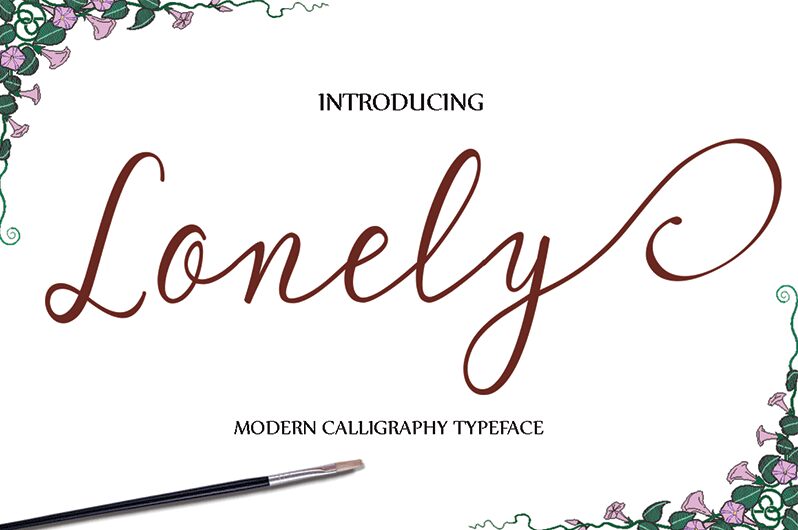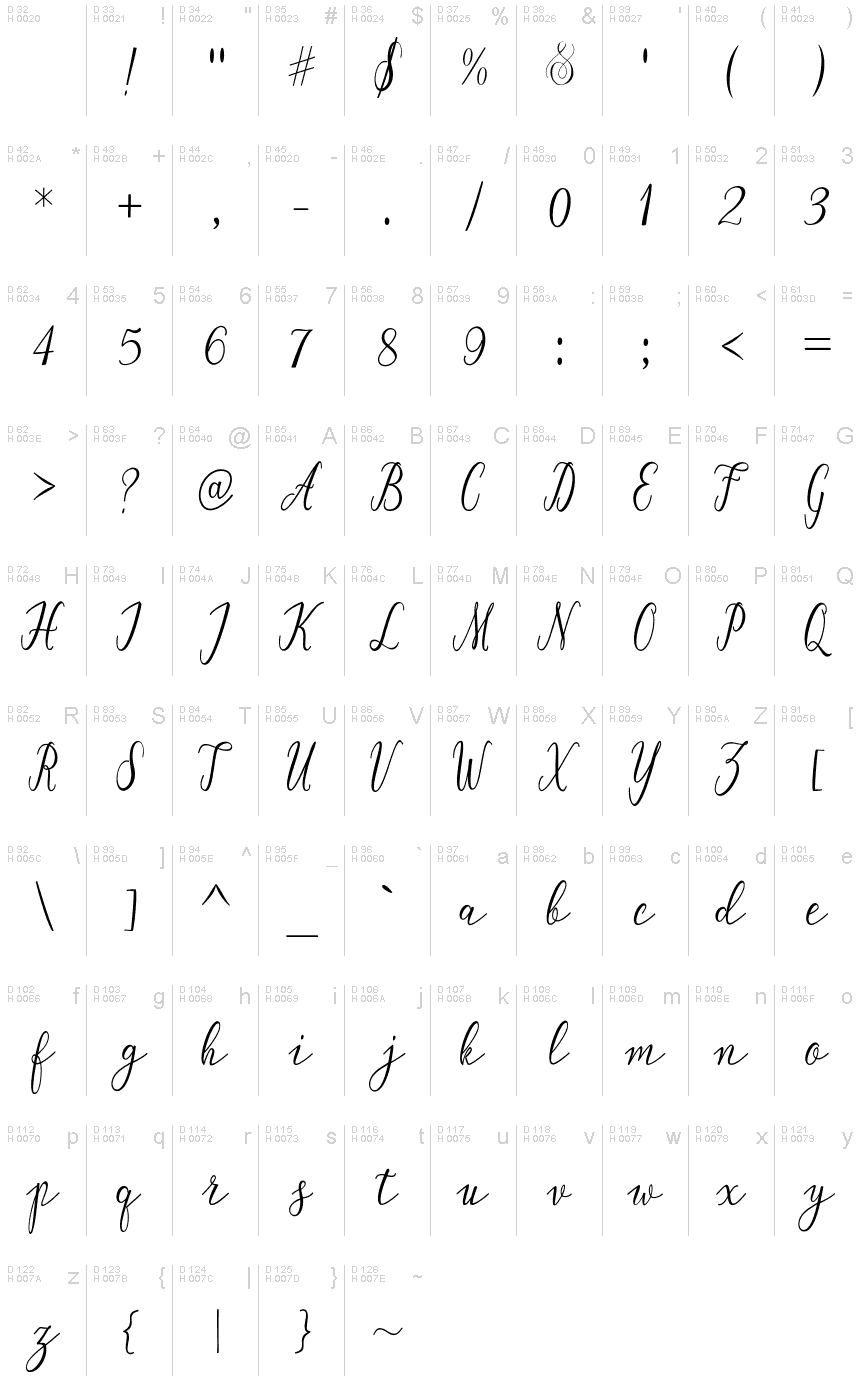
Lonely
Lonely, a breathtaking calligraphy font designed by Pollem Studio, is perfect for elegant and sophisticated projects. Its light weight gives off a delicate and refined feel, making it suitable for wedding invitations or high-end branding materials. The beautifully crafted strokes of this semi-bold typeface are sure to add a touch of luxury to any project. Use Lonely in your design work to create a sense of class and refinement that will surely impress your audience. With its unique style and high readability, this font is the perfect choice for any project where elegance is key.